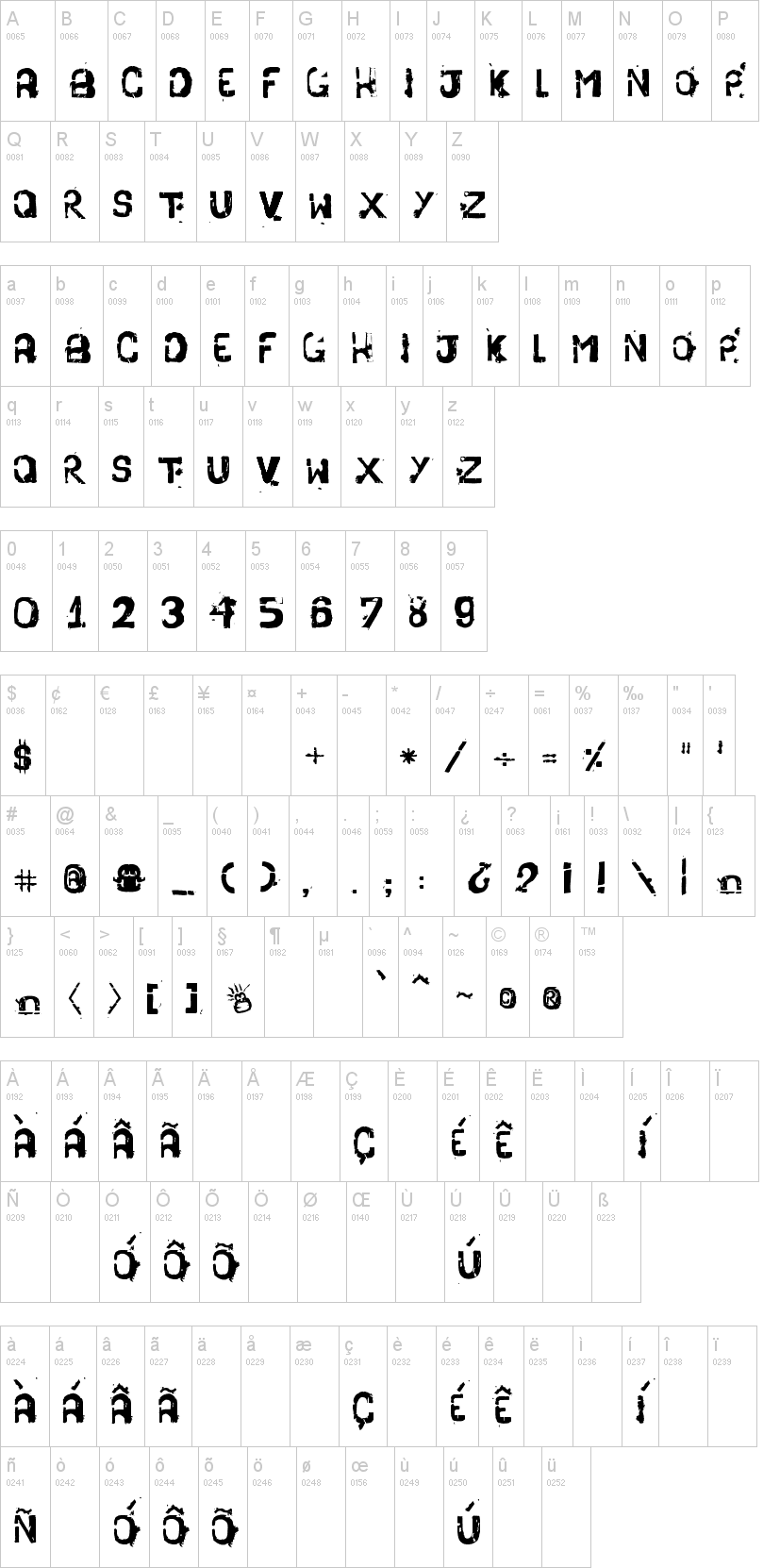
Шрифт Stencil Pra Vender Côco
In a so far away country as Guiana Francesa, some people use coconut to kill their enemyes. It works better if you wanna drink a great and cool drink in Brazil, there they have this one (the font), to sell the green coconut.